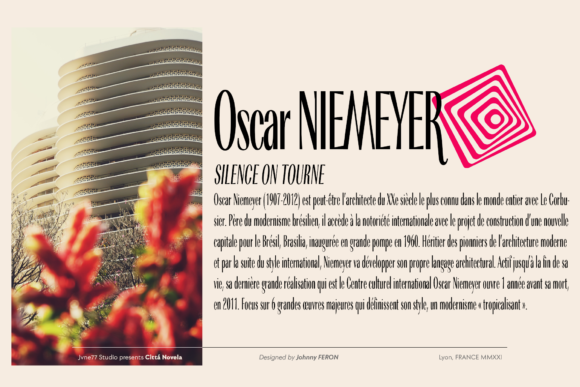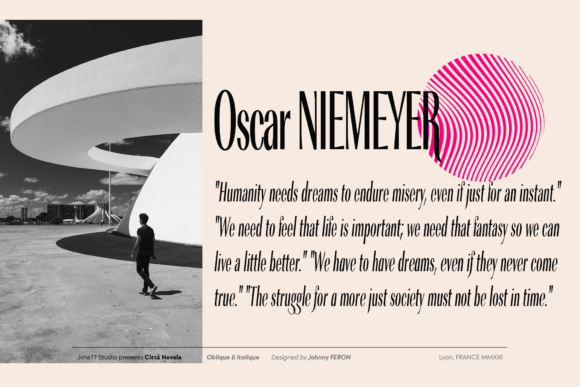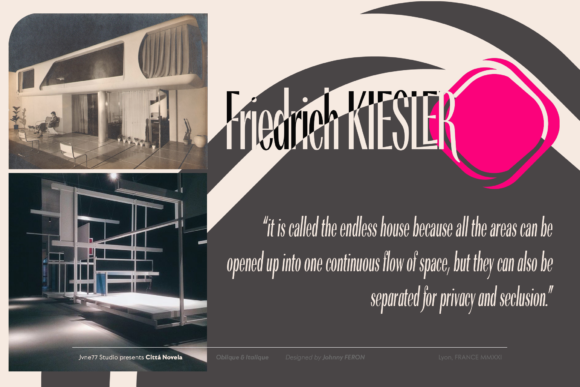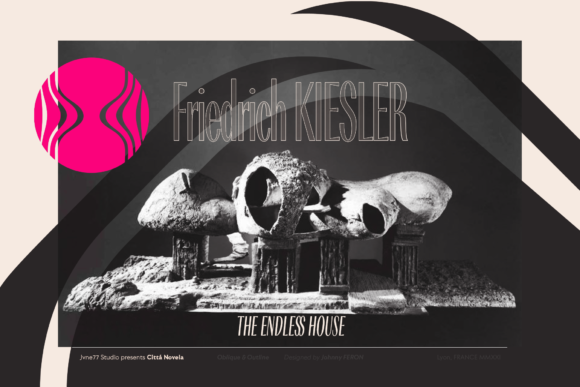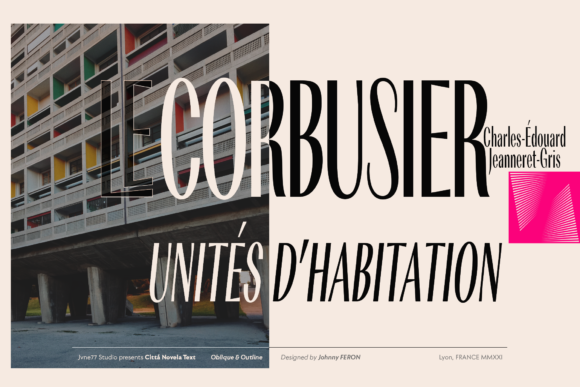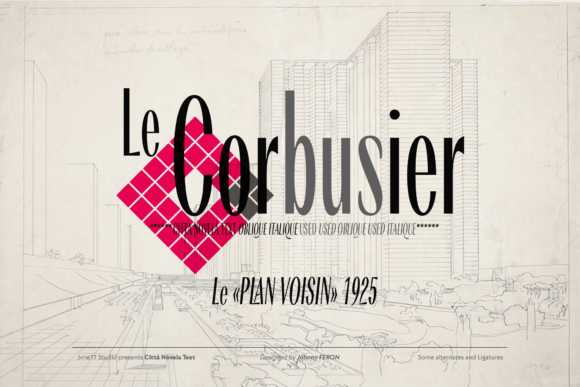
Cittá Novela Font: A Timeless Sans Serif for Modern Design
In the world of typography, fonts play a crucial role in conveying the message and aesthetic of a design. For designers and crafters, finding the perfect font can be a daunting task. However, if you’re looking for a classy and sophisticated sans serif font, look no further than Cittá Novela. Inspired by vintage architecture from the mid-1920s to the 1960s, Cittá Novela is an upright sans serif font family that exudes elegance and refinement.
The Inspiration Behind Cittá Novela
Cittá Novela draws inspiration from the iconic buildings of the mid-20th century, characterized by clean lines, minimal ornamentation, and a sense of grandeur. The font’s design is rooted in the principles of modernist architecture, which emphasized functionality and simplicity. The result is a font that embodies the spirit of a bygone era, while still feeling fresh and contemporary.
Design Characteristics of Cittá Novela
Cittá Novela is a didonesque streamlined sans font, which means it features a sleek and refined design with a focus on clean lines and geometric shapes. The font’s upright stance and sans serif design make it perfect for use in titles, headings, and text. The classy and sophisticated feel of Cittá Novela is achieved through its subtle nuances, such as the gentle curves and rounded edges, which add a touch of warmth and humanity to the font.
Use Cases for Cittá Novela
Cittá Novela is a versatile font that can be used in a variety of design applications. Its elegant and refined design makes it perfect for:
- Headings and Titles: Cittá Novela’s bold and confident design makes it ideal for use in headings and titles, where it can add a touch of sophistication and glamour.
- Branding and Identity: The font’s unique blend of vintage and modern elements makes it perfect for use in branding and identity design, where it can help to create a distinctive and memorable visual identity.
- Print and Digital Media: Cittá Novela’s clear and legible design makes it suitable for use in both print and digital media, including magazines, newspapers, websites, and more.
Benefits of Using Cittá Novela
So why choose Cittá Novela for your design projects? Here are just a few benefits of using this exceptional font:
- Timeless Design: Cittá Novela’s design is inspired by vintage architecture, but it still feels fresh and contemporary. This means that your designs will stand the test of time, without looking dated or out of style.
- Versatility: Cittá Novela is a versatile font that can be used in a variety of design applications, from headings and titles to body text and more.
- Elegance and Sophistication: Cittá Novela’s classy and refined design adds a touch of elegance and sophistication to any design, making it perfect for high-end brands and luxury products.
In conclusion, Cittá Novela is an exceptional sans serif font that is perfect for designers and crafters looking for a classy and sophisticated font. Its timeless design, versatility, and elegance make it an excellent choice for a wide range of design applications. Whether you’re working on a branding project, designing a website, or creating a print publication, Cittá Novela is sure to impress. So why not give it a try and see the difference it can make in your designs?